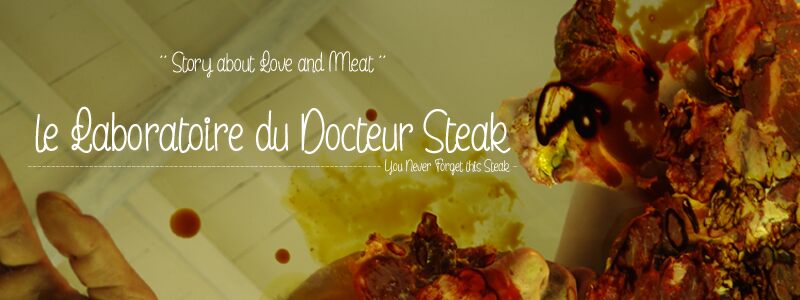
leLaboratoireduDocteurSteak
Embodying the captivating essence of handwritten expression, "le Laboratoire du Docteur Steak" by Maelle.K and Thomas Boucherie emanates a delightfully quirky and playful aura. This condensed, handwritten font exudes a charming, whimsical character, seamlessly blending the organic fluidity of cursive with a touch of refined elegance. Its distinctive strokes and subtle variations lend a sense of authenticity, creating an inviting and visually engaging typographic experience.
The versatility of "le Laboratoire du Docteur Steak" makes it a versatile choice for a wide range of design applications. Its captivating personality lends itself beautifully to branding, packaging, and editorial projects, infusing a playful and distinctive flair. Equally at home in creative advertising campaigns, product labeling, and even personal stationery, this font effortlessly brings a touch of whimsy and character to any design.